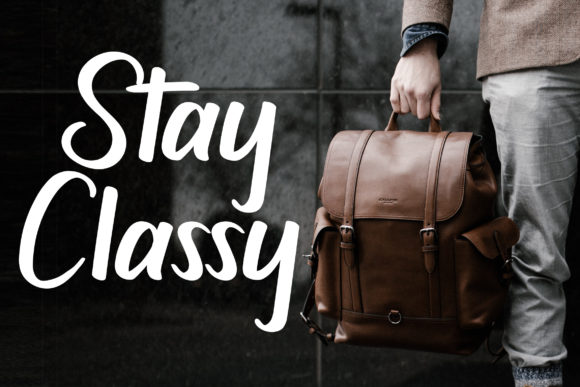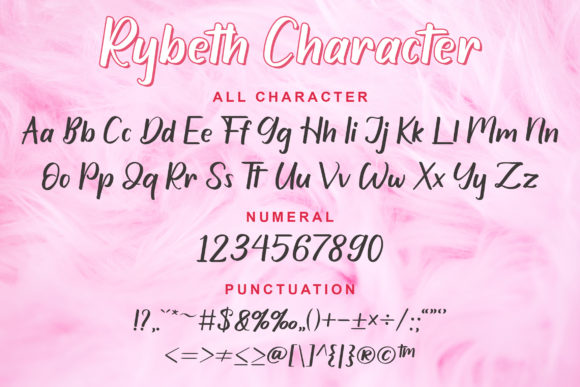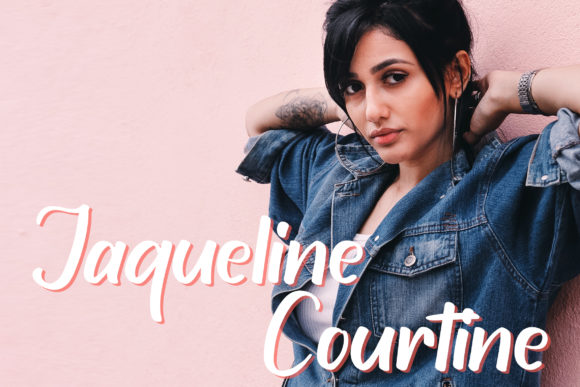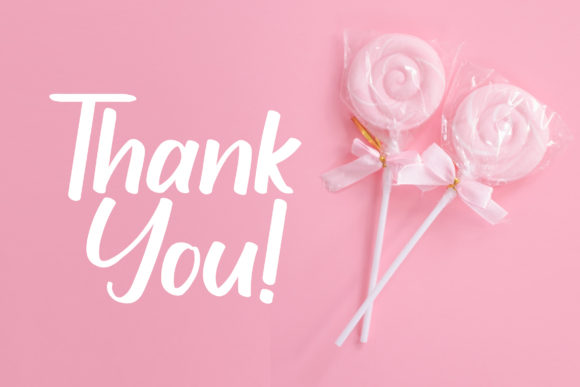
Introduction to Rybeth Font Font
Fonts play a crucial role in design, and the Rybeth Font font is a typeface that brings both character and versatility to any project. Whether you’re working on a branding project, a website, or a print design, the Rybeth Font font offers a unique style that can elevate your work.
Rybeth is a sweet and playful script thatβs great for adding that romantic spark to your next craft project.
Rybeth is a sweet and playful script thatβs great for adding that romantic spark to your next craft project!
Key Features of Rybeth Font Font
Why Choose Rybeth Font Font?
The Rybeth Font font is more than just a typeface β it’s a design tool that helps you communicate your message with style and clarity. Its unique character set and versatile design make it suitable for a wide range of applications, from elegant invitations to bold headlines.
With its carefully crafted letterforms and balanced proportions, the Rybeth Font font ensures readability and visual appeal across all mediums.
What makes Rybeth Font font special?
The Rybeth Font font stands out with its unique design, exceptional readability, and versatility across various design applications.